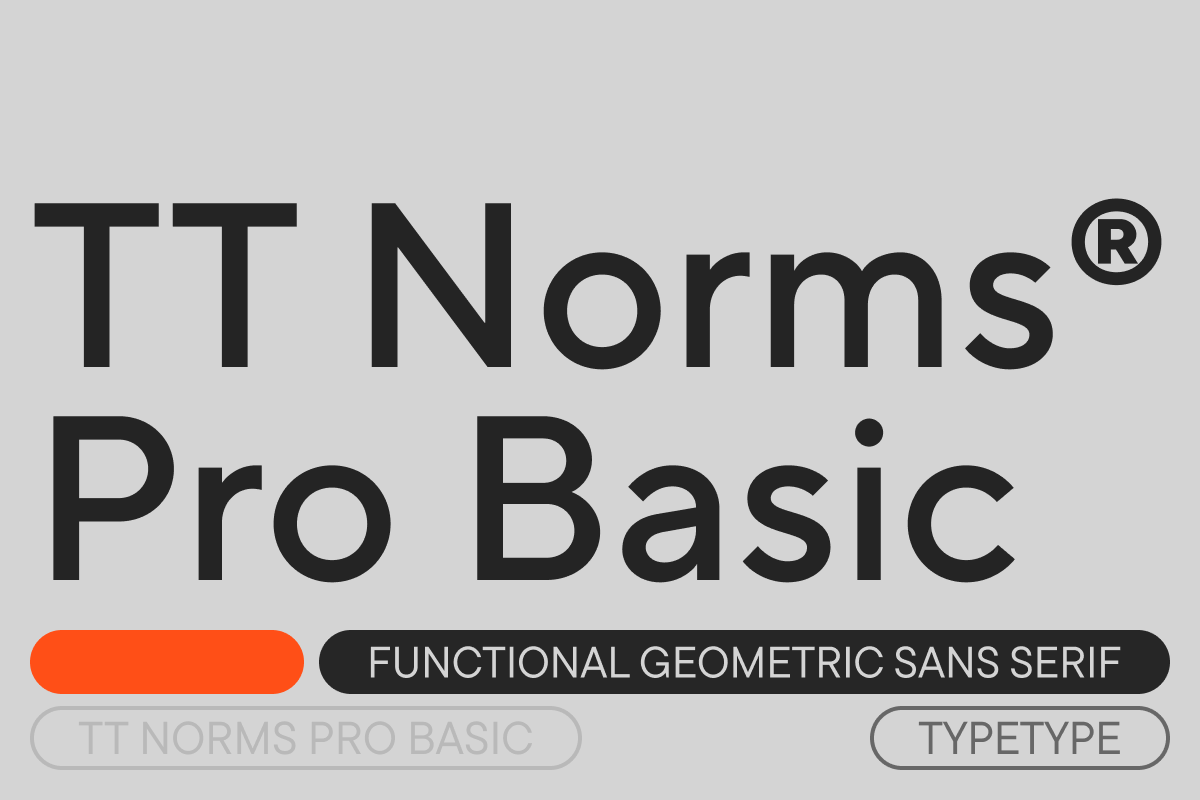
TT Norms Pro DemiBold Italic
TT Norms® Pro is a functional geometric sans serif for aesthetic solutions, a bestseller from TypeType studio. This is a stylish, elegant, and versatile typeface that will serve as a solid foundation for your collection. On one hand, TT Norms® Pro is aesthetic and functional, which allows it to be used as an accent. On the other hand, the font is neutral enough to be the perfect «workhorse» that provides impeccable readability and creates consistent setting in running text.